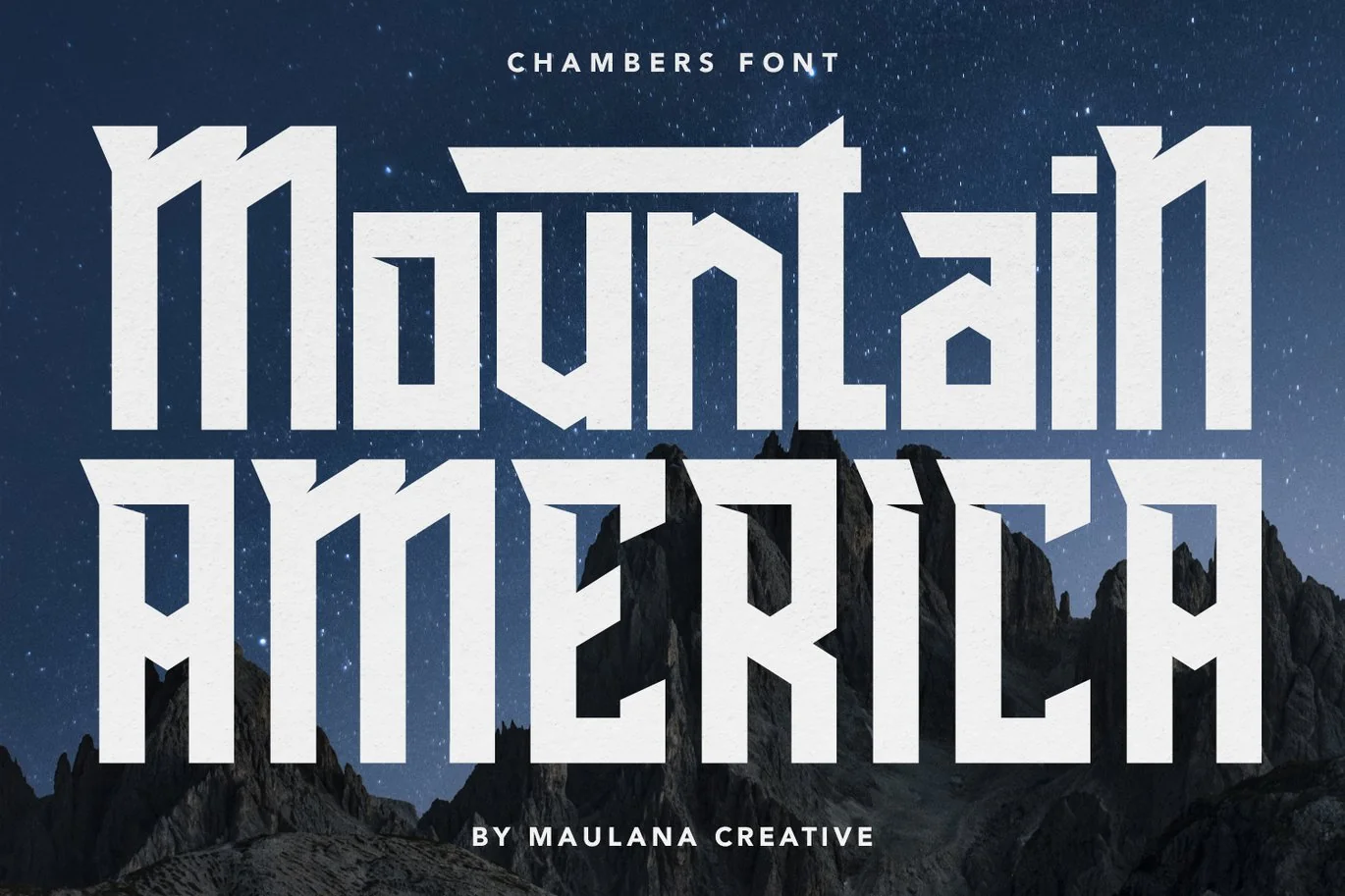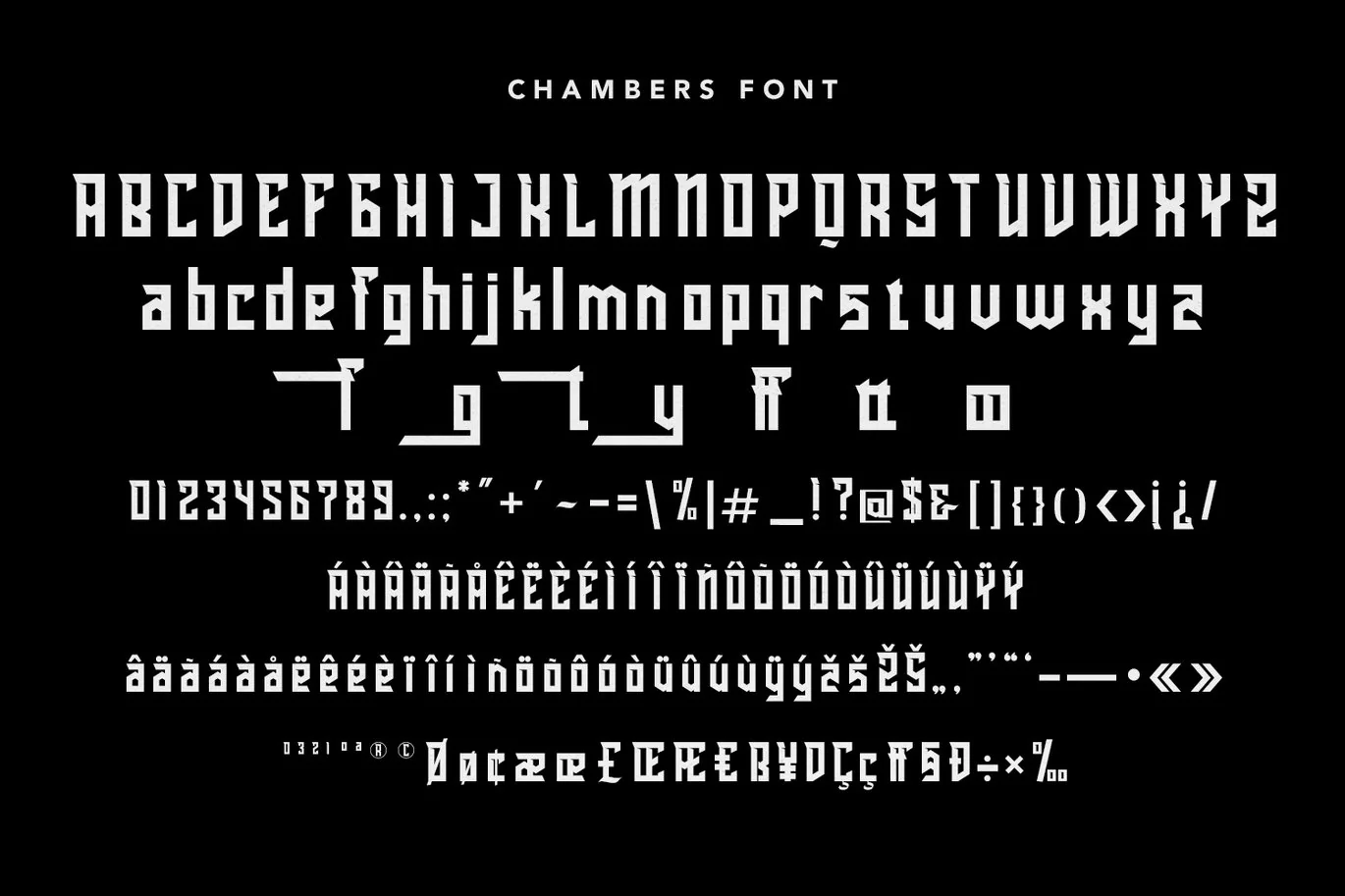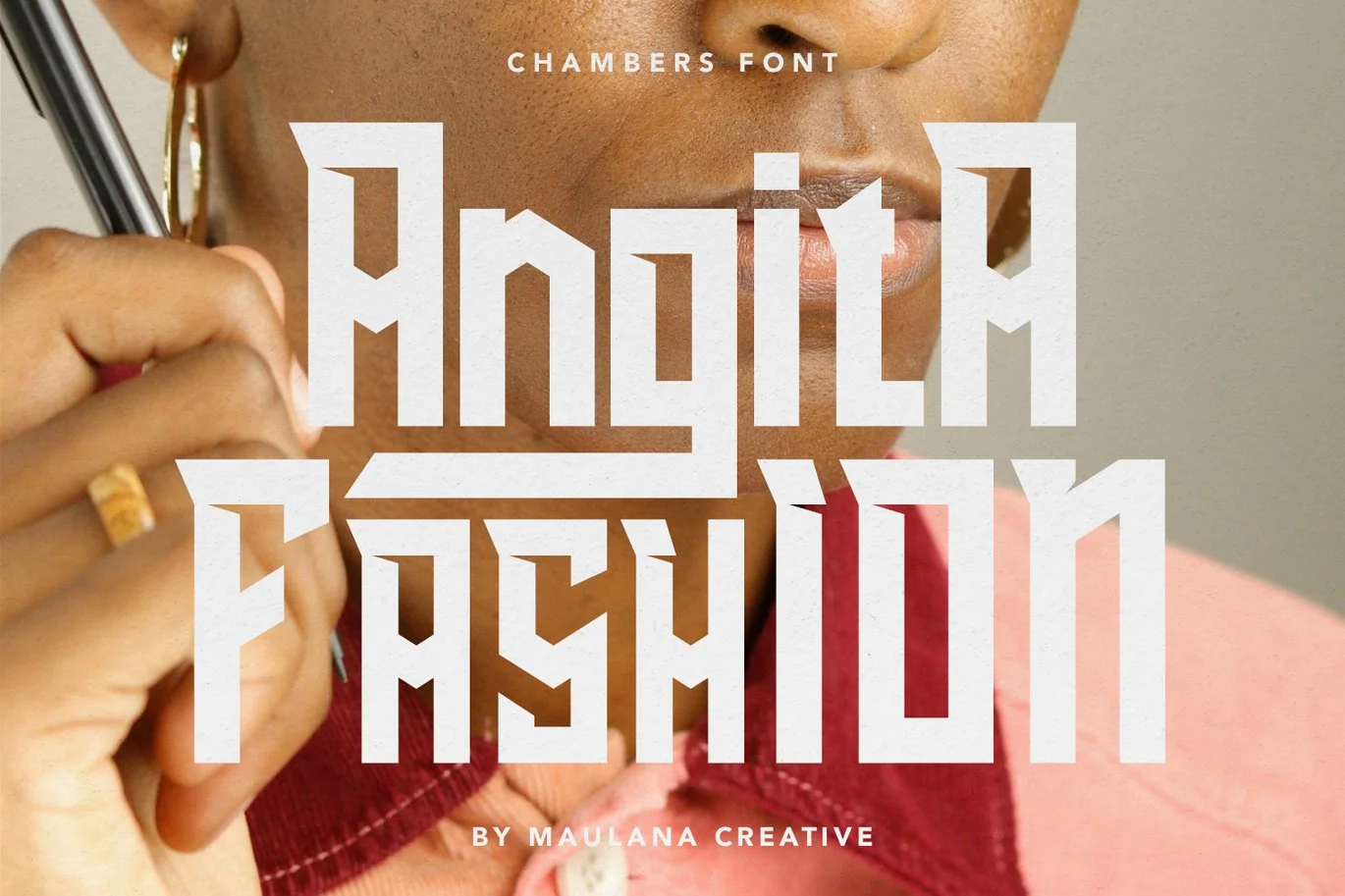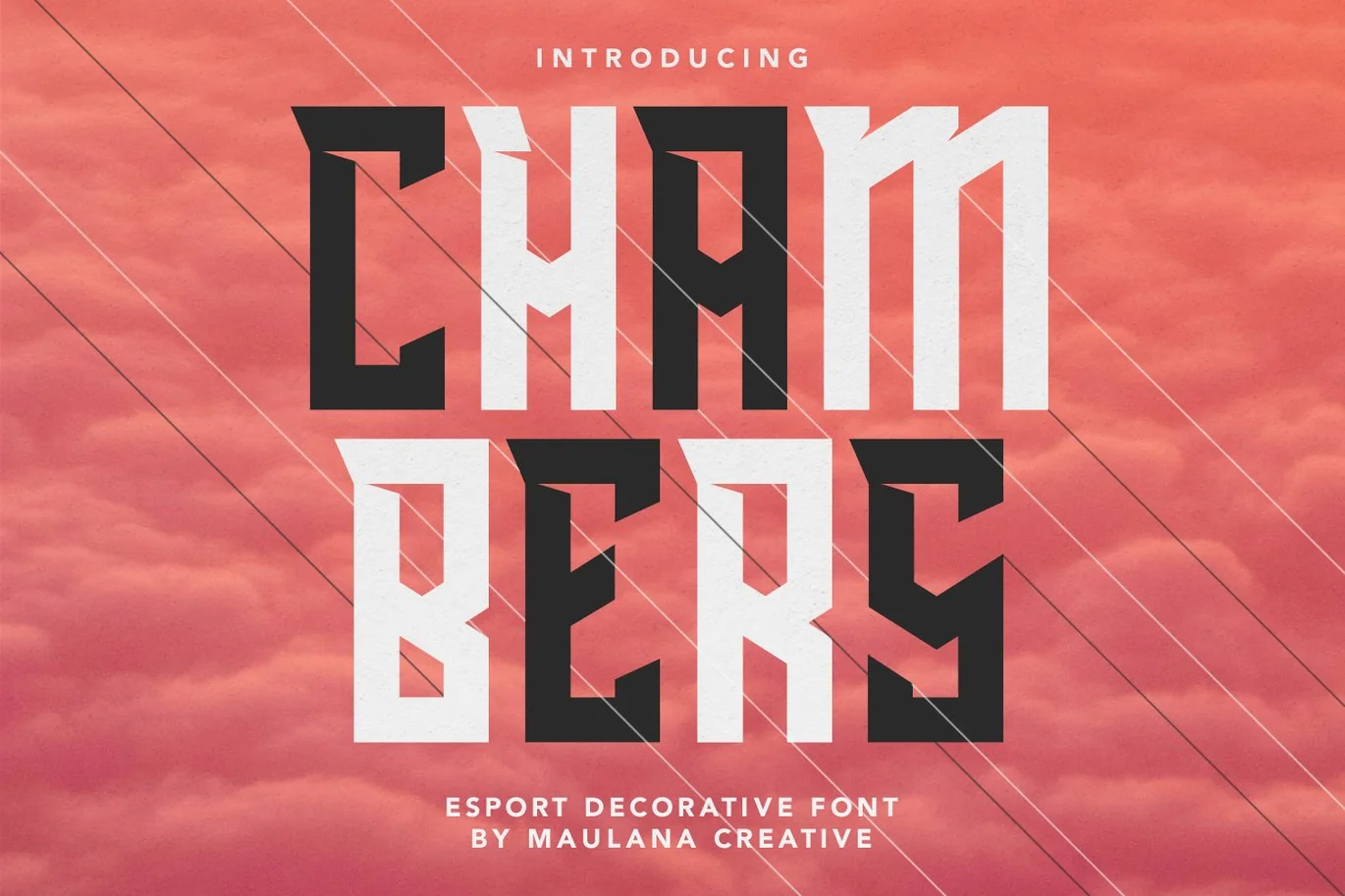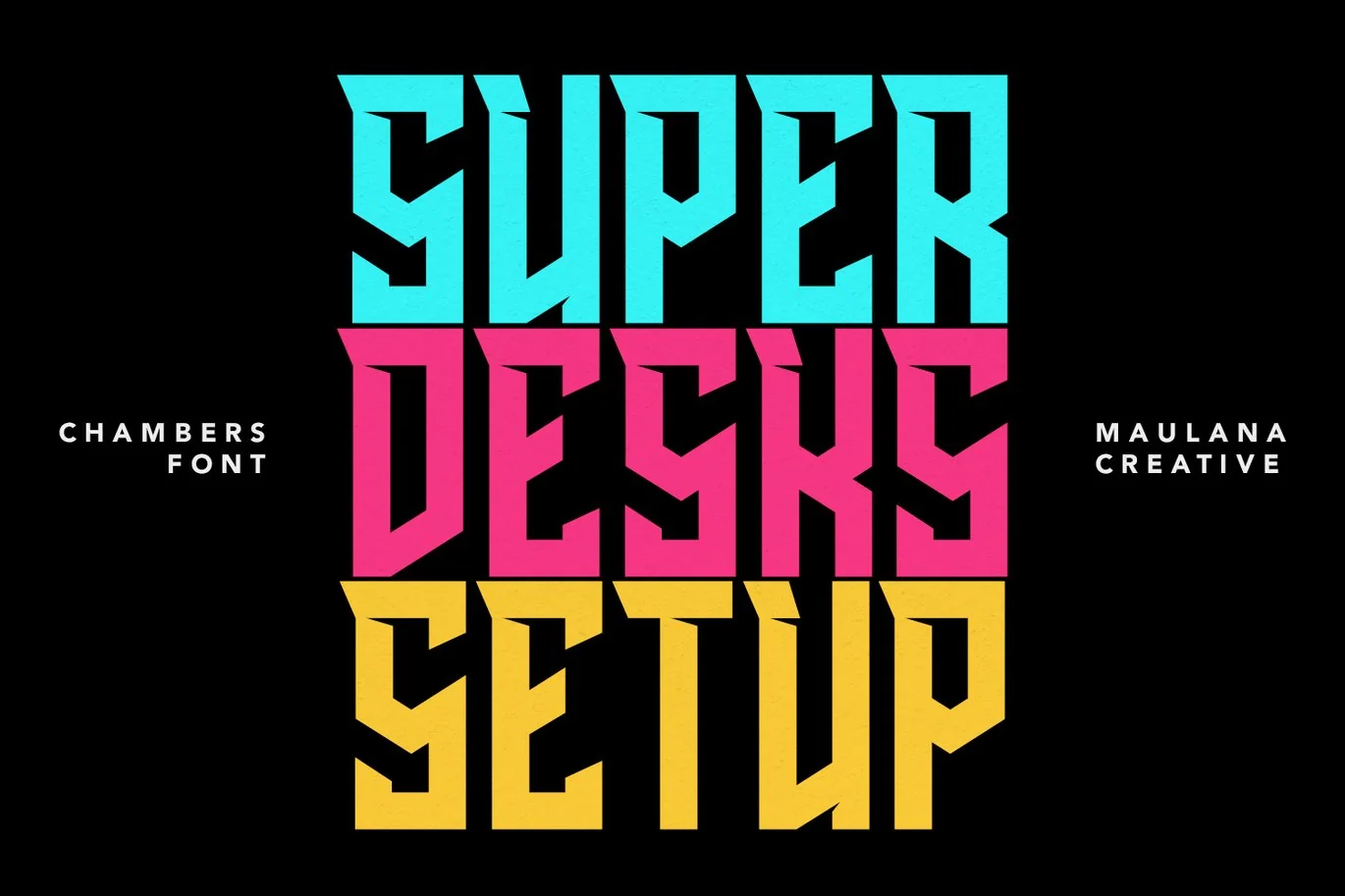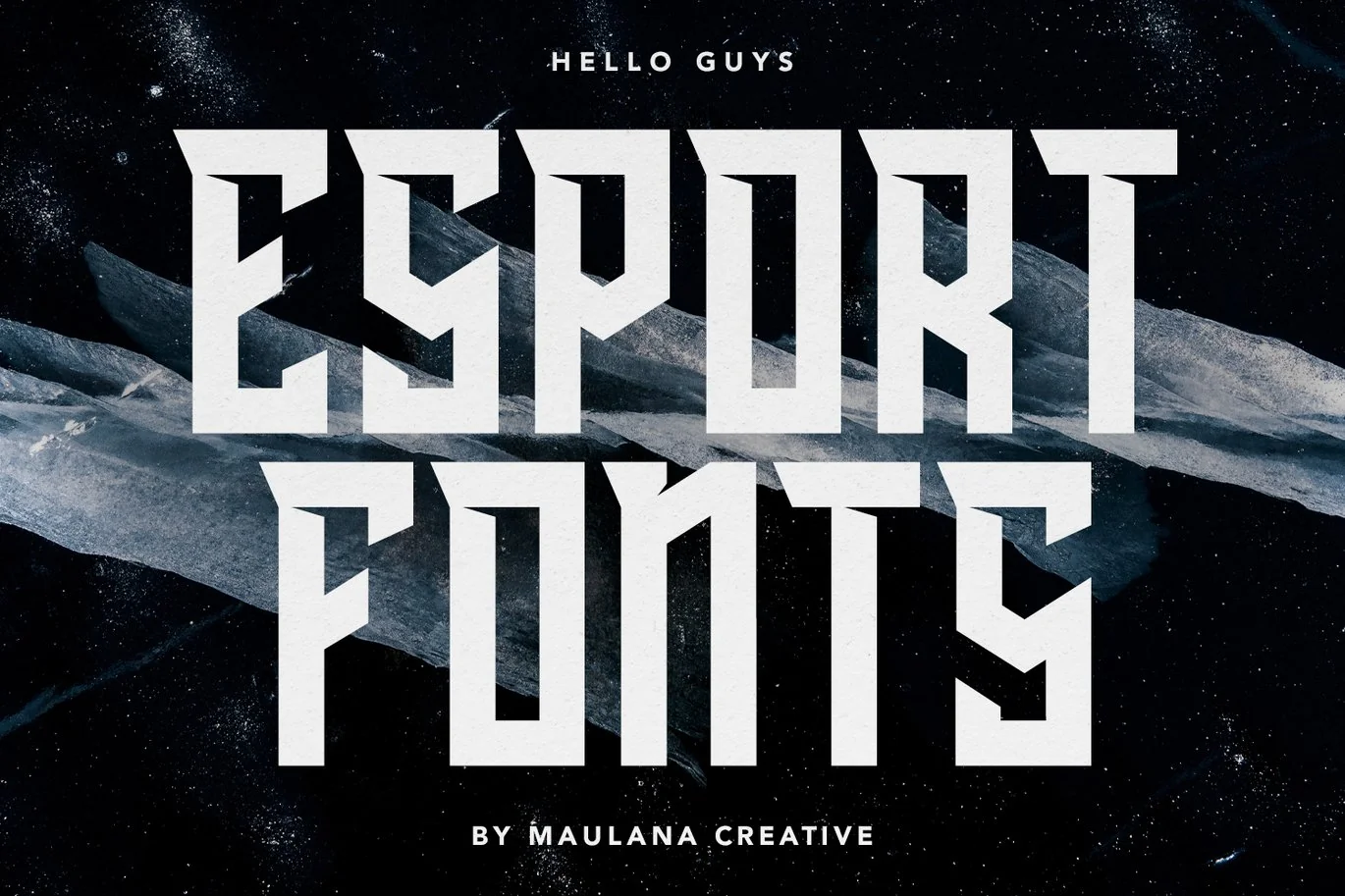
Chambers Esport Decorative Font
Give your designs an authentic handcrafted feel. Chambers Esport Decorative Font is perfectly suited to logo, stationery, branding, typography quotes, magazine or book cover, website header, clothing, branding, packaging design, restaurant and more.